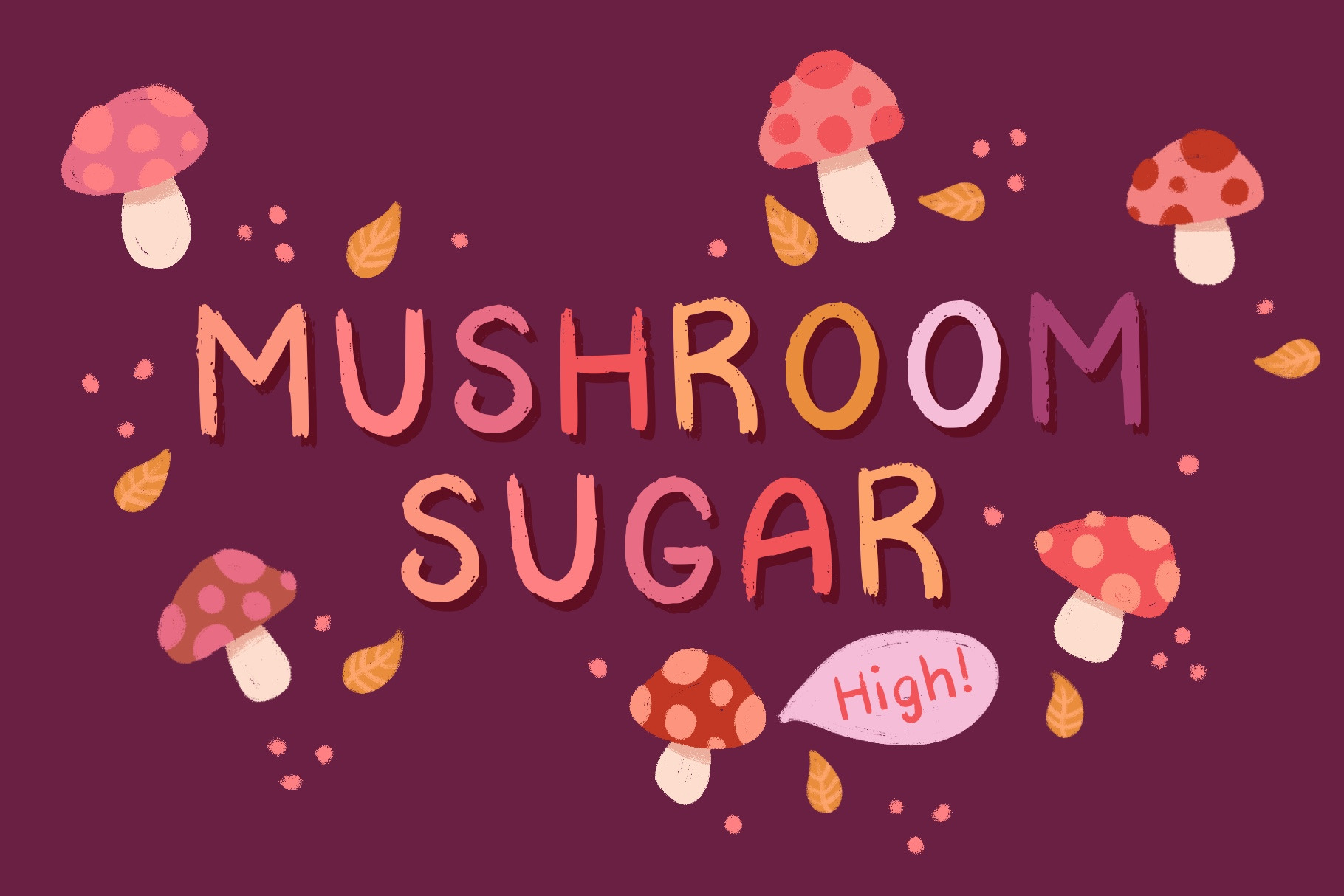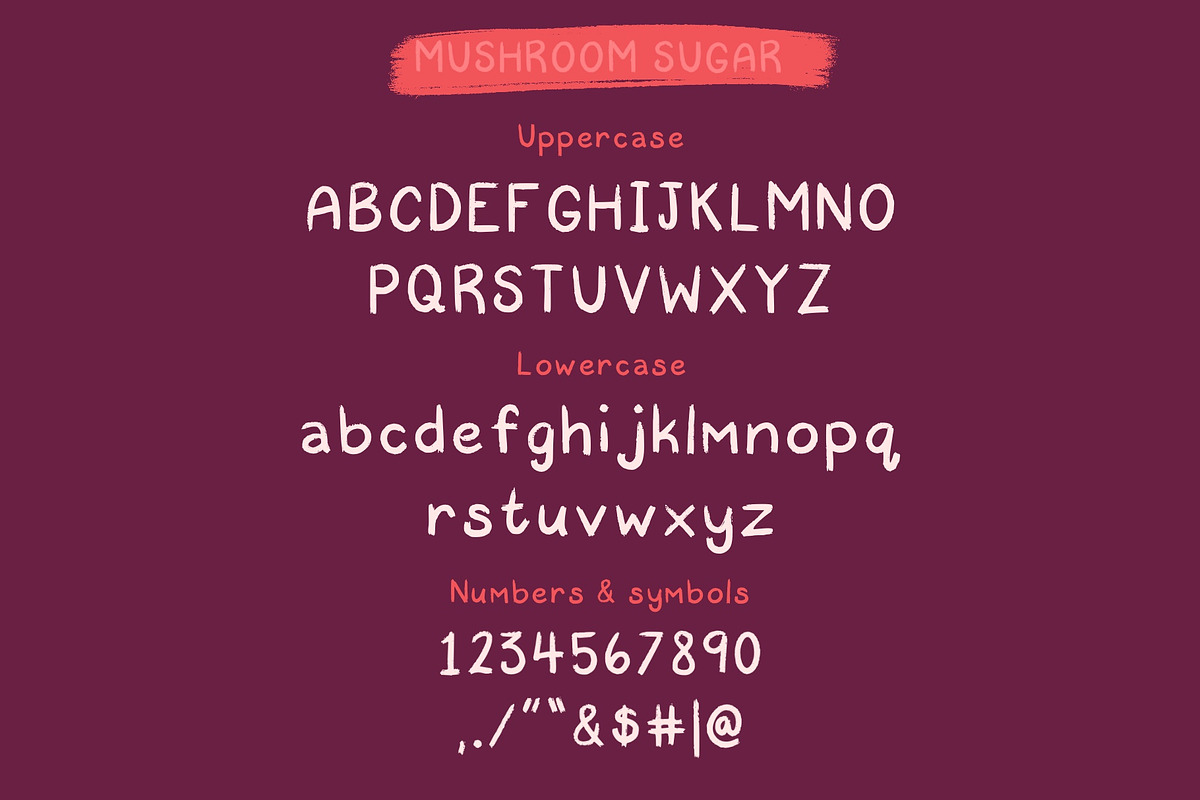
Mushroom Sugar Font & Elements
Mushroom Sugar Brush Font Elements Included
Creative brush font for any art project, can be used well in Procreate or paired with mushroom illustrations. Photoshop and Procreate mushroom elements are included with the font.
Uppercase, lowercase, numbers, and common symbols used for display fonts are included.